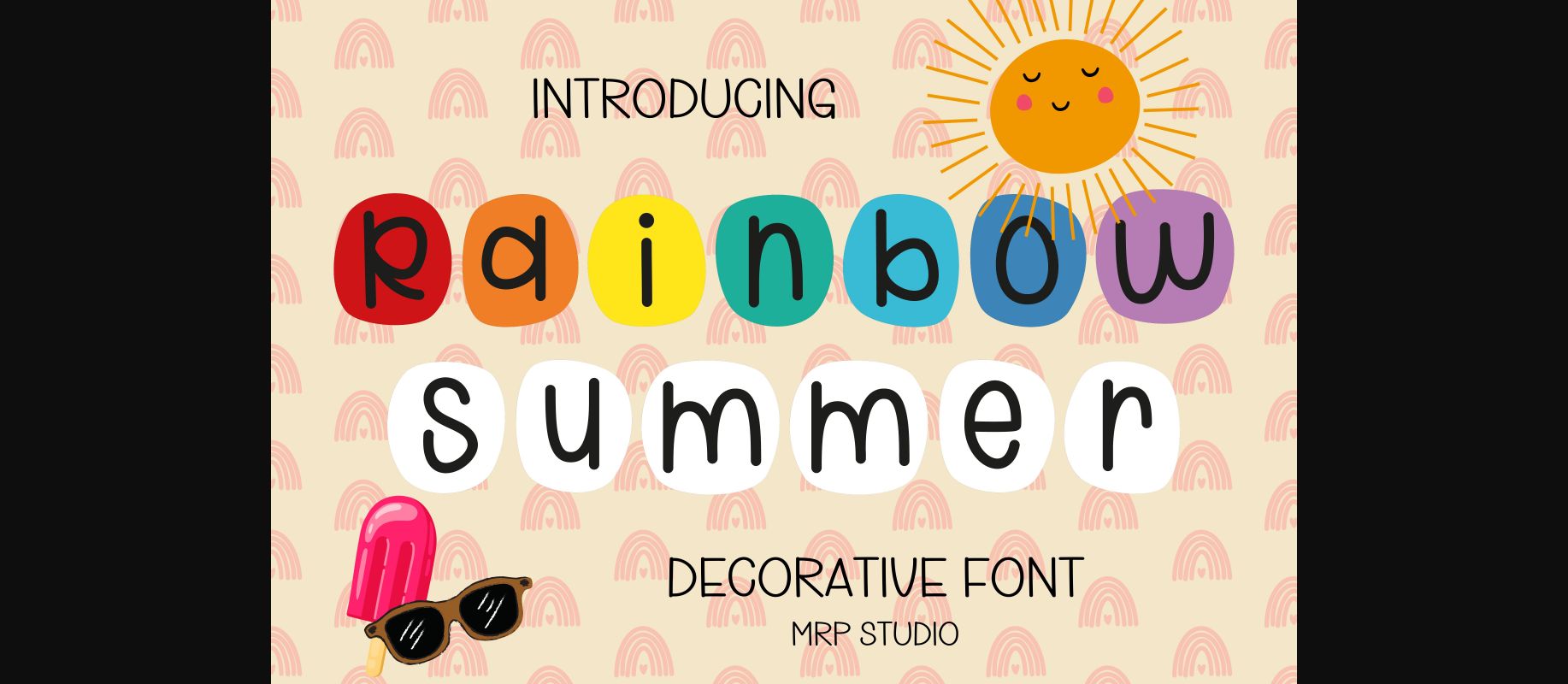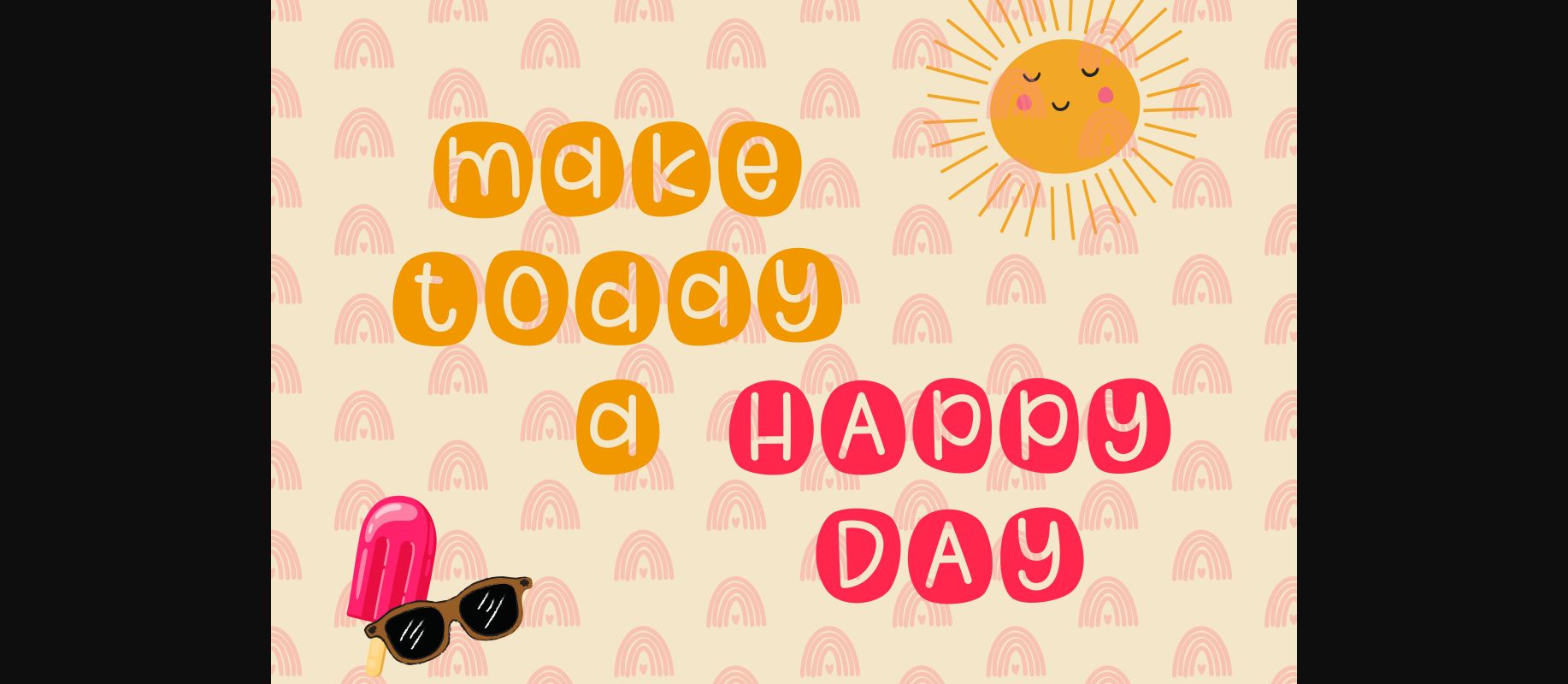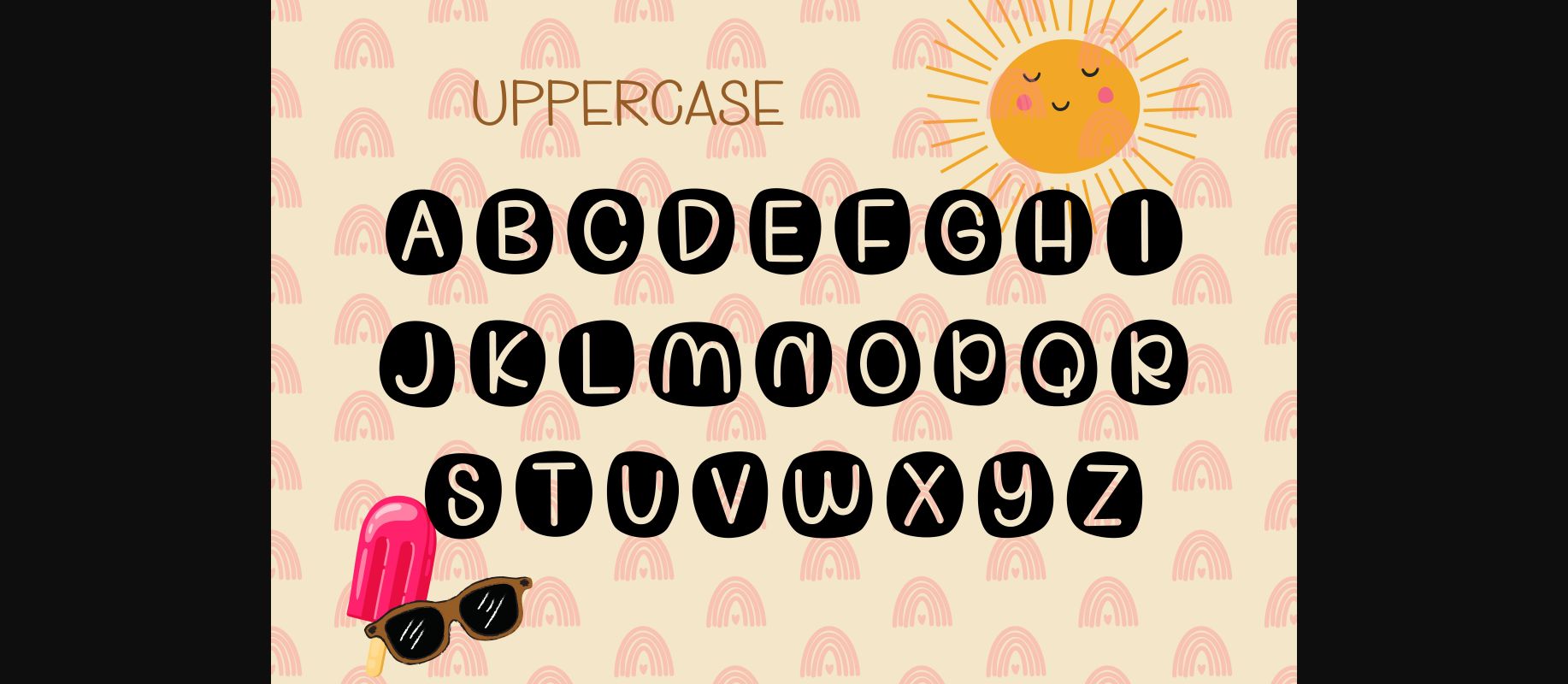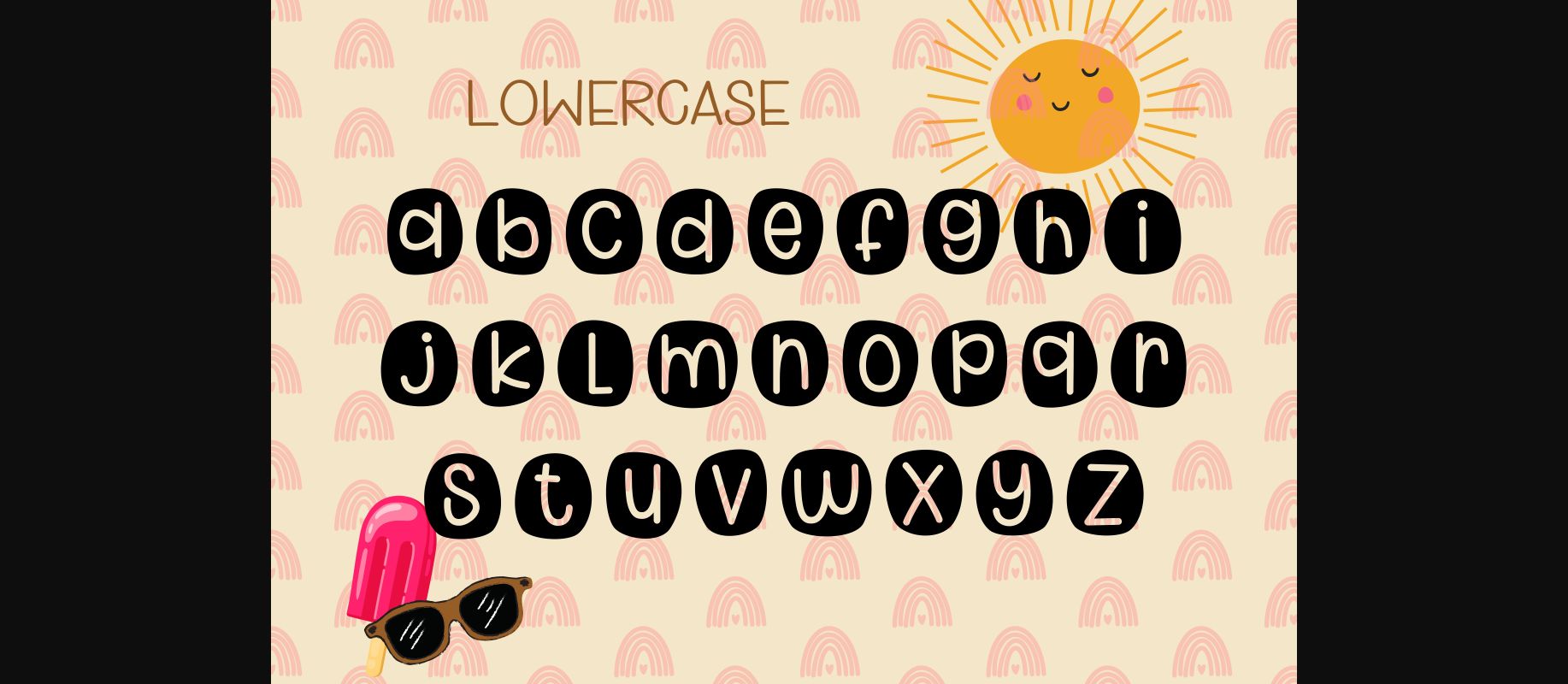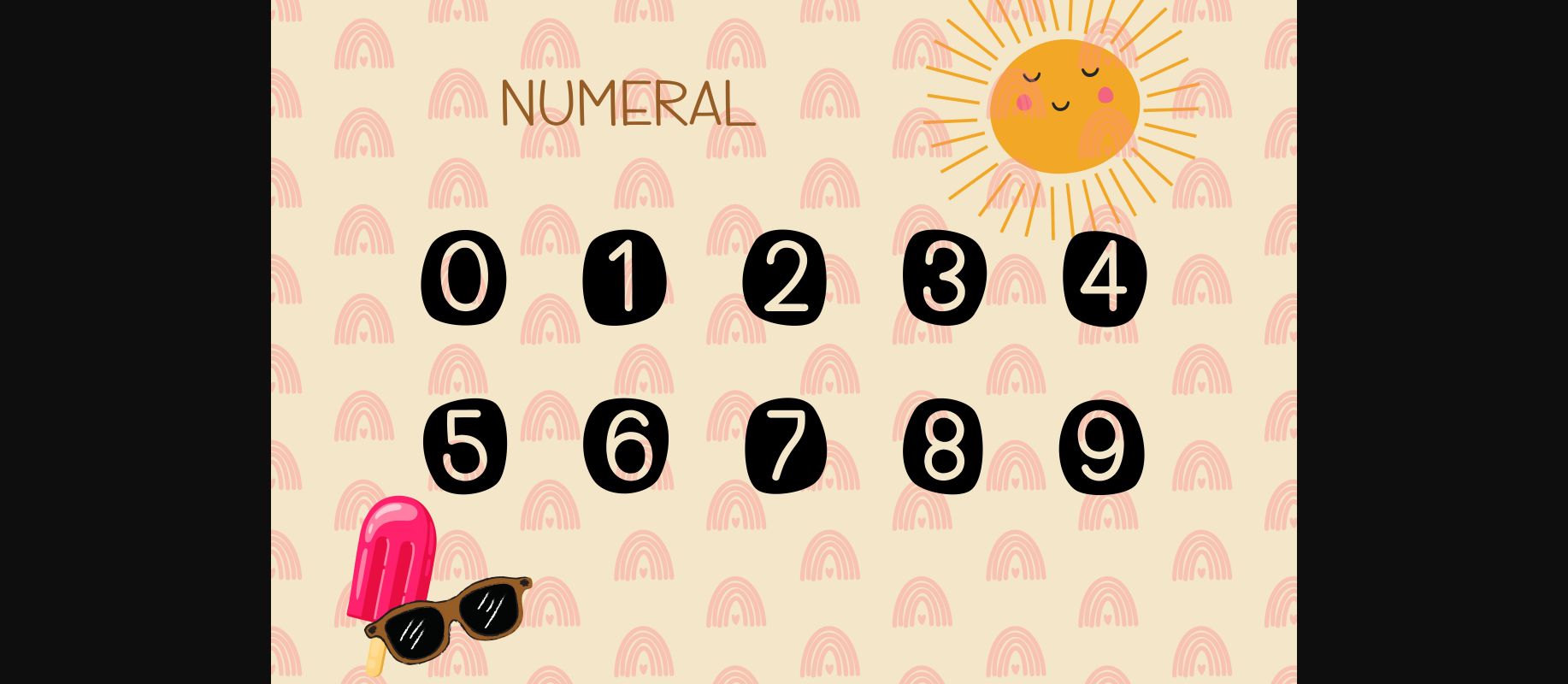
About Rainbow Summer Font
Rainbow Summer is designed in a cute and adorable decorative font style. It would be awesome for your lovely Project and also your child-related project such as back to school, birthday party decoration, and much more to any topic which needs bright and fun touch. Let’s try it and add it to your creative ideas and notice how it makes them stand out!